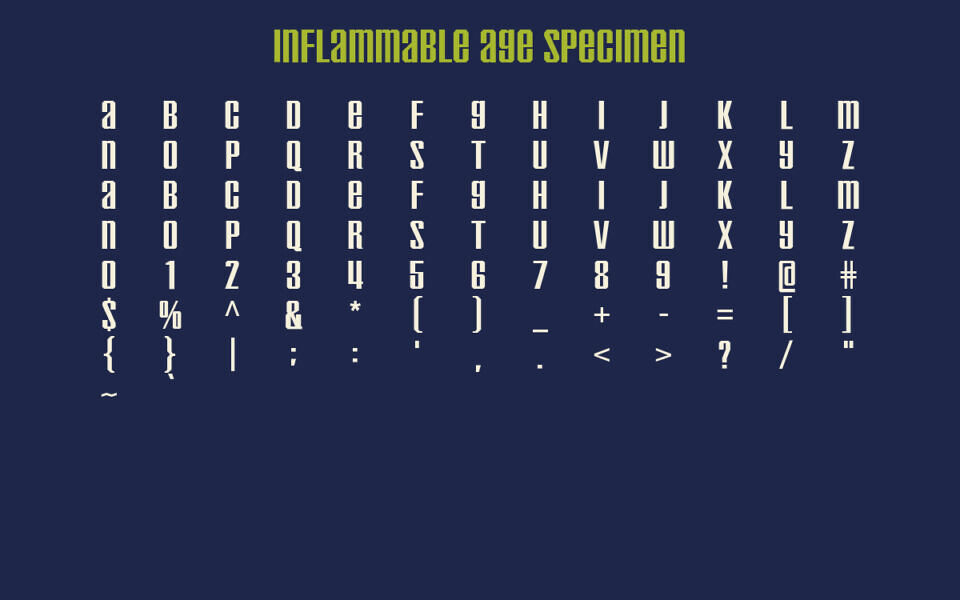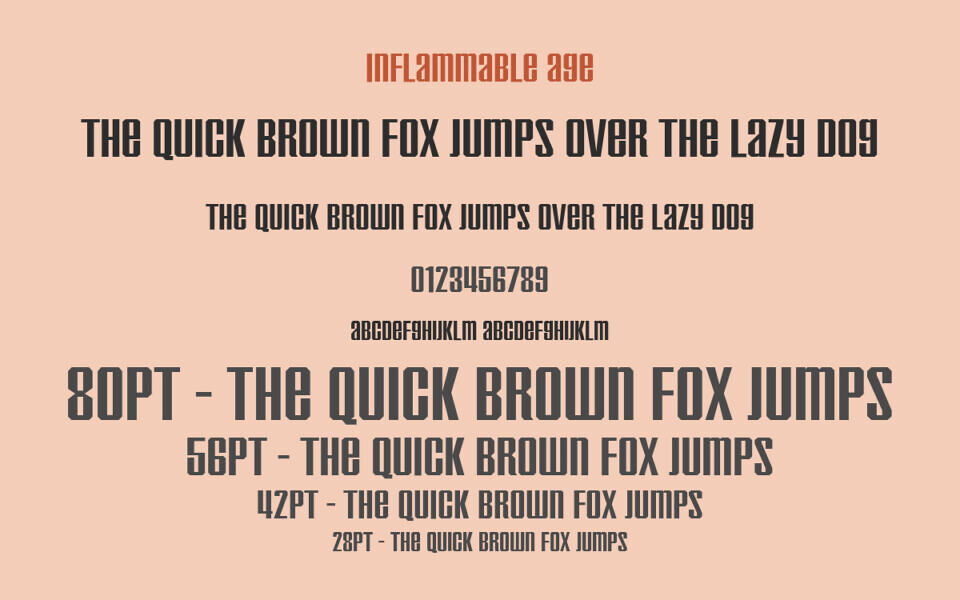
Inflammable Age Font
Inflammable Age is a striking, narrow techno font designed by Typodermic Fonts. Characterized by its high-waisted, ultra-condensed forms and rugged, industrial aesthetic, it commands attention in any layout.
Its unique squarish anatomy features sharp angles and mechanical curves, making it perfect for cyberpunk branding, sci-fi titles, and aggressive display graphics. This versatile typeface includes a full set of uppercase and lowercase characters, numbers, and extensive symbols.